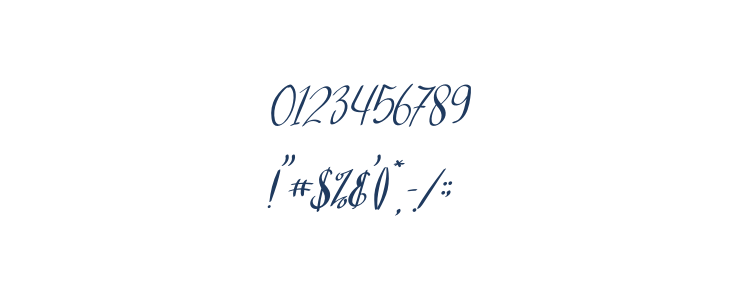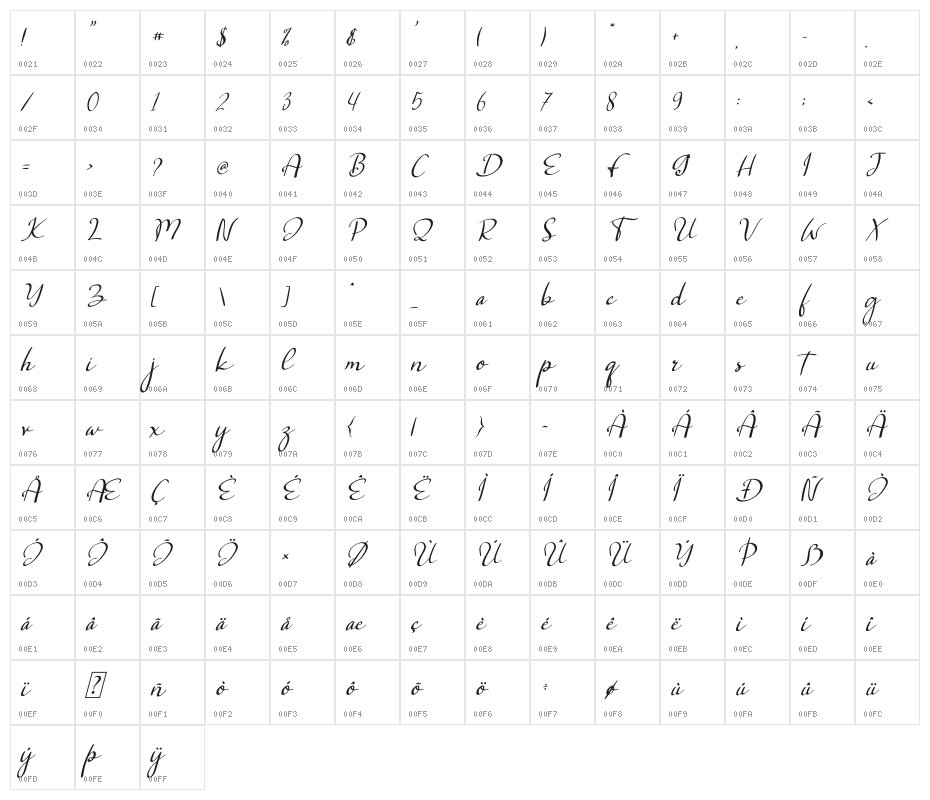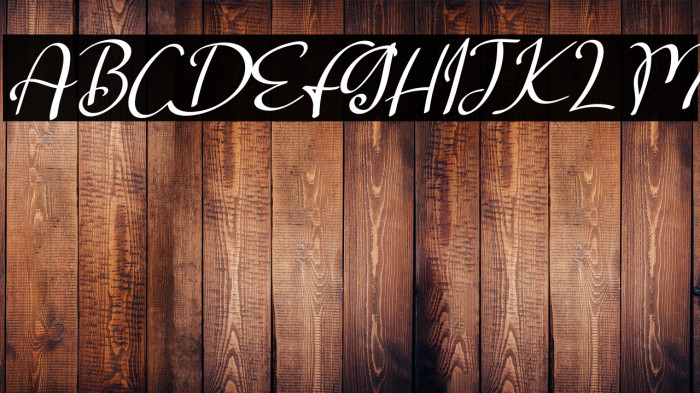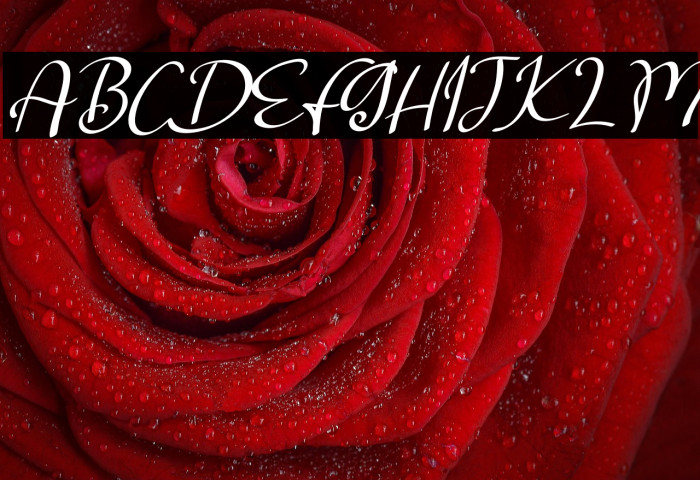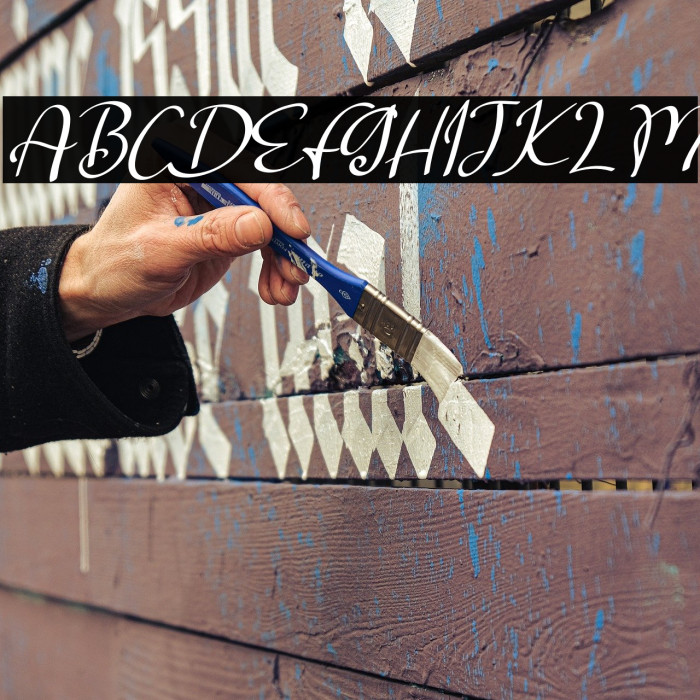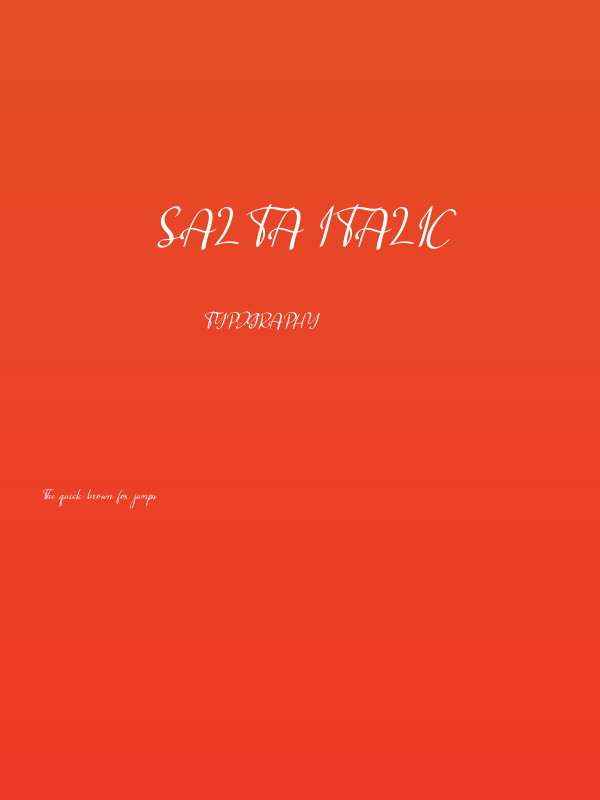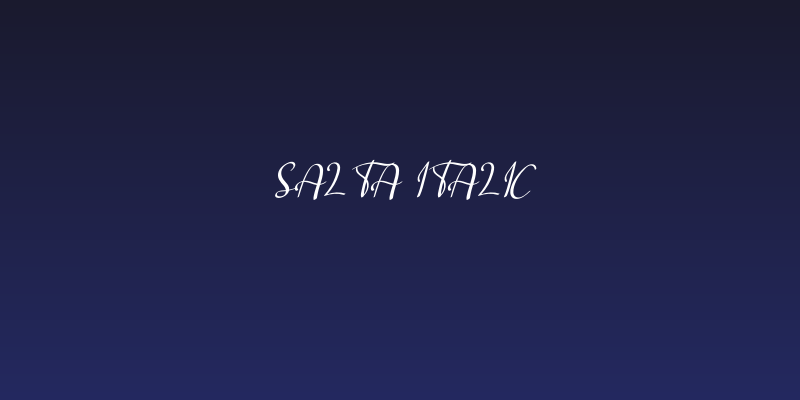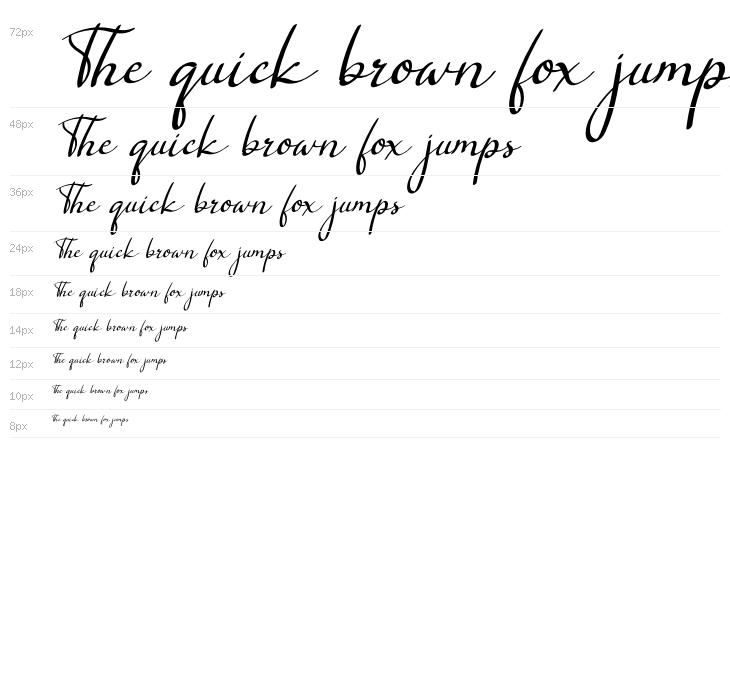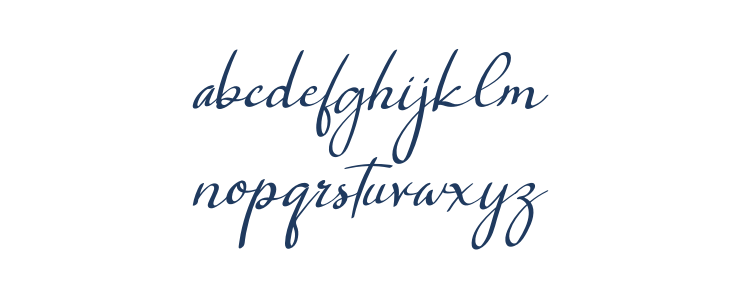
Salta Italic Font
Salta Italic Description
This font features a flowing, cursive style with elegant, sweeping strokes that give it a sophisticated and artistic appearance. The characters are connected in a fluid manner, reminiscent of traditional calligraphy, yet with a modern twist. The uppercase letters are particularly ornate, with distinctive flourishes that add a touch of drama and flair. The lowercase letters maintain a consistent rhythm, enhancing readability while still retaining their decorative nature. The numerals and special characters are designed to complement the overall aesthetic, ensuring a cohesive look across all text. This font is ideal for projects that require a touch of elegance and creativity.
| Proposed Projects | Wedding invitations, branding for luxury products, artistic posters, and elegant stationery. |